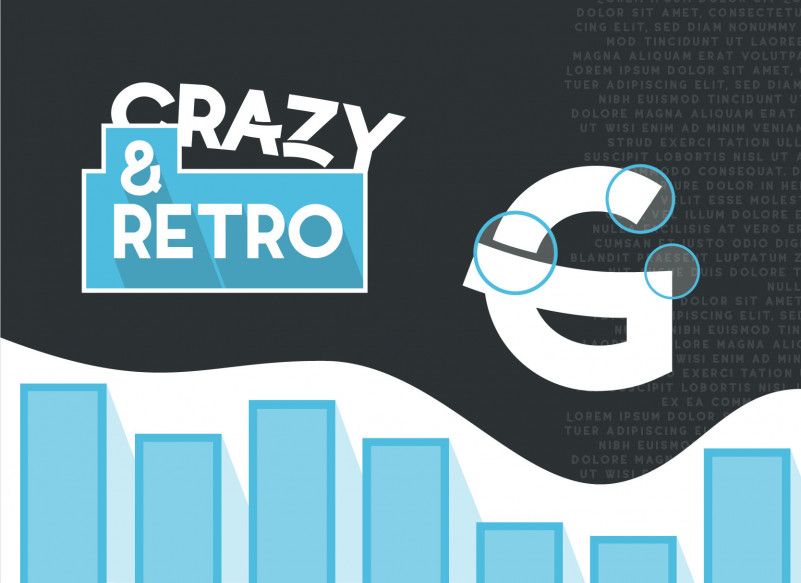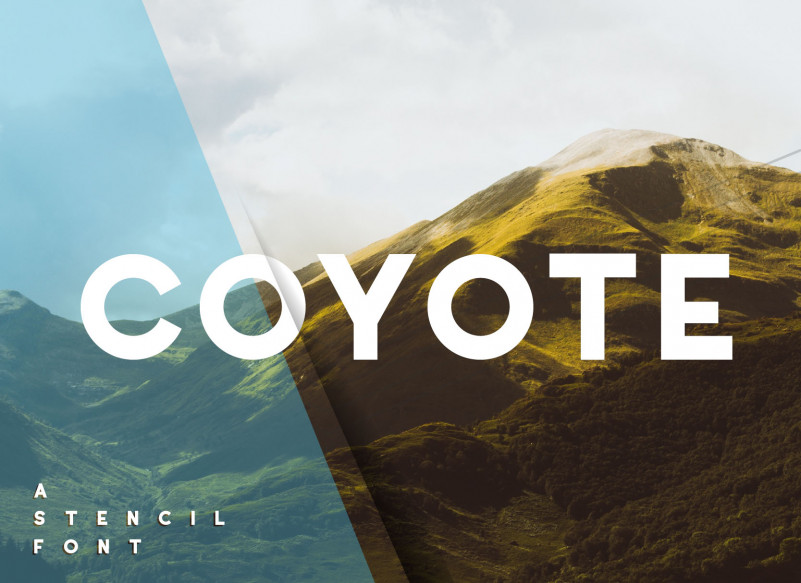
Coyote Sans Serif Font
Coyote Sans Serif Font is a fancy retro font with sharp edges to emphasize the calm character of the font. Or you go crazy with the alternative letters. Language support and the full character set is included in a standard license. It is free for personal use only, so for any commercial use buy an license.